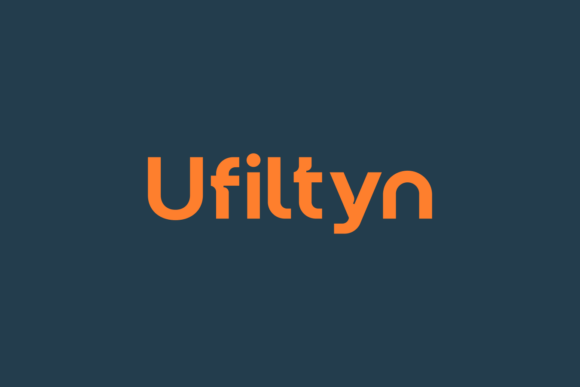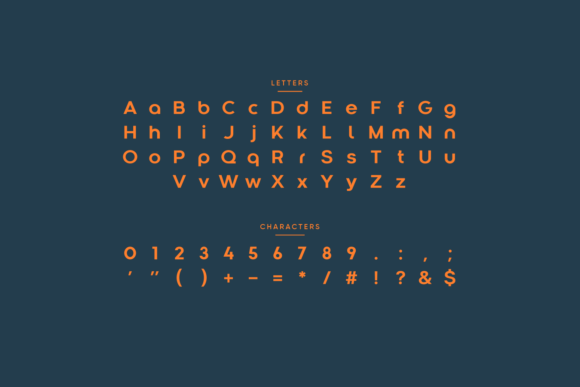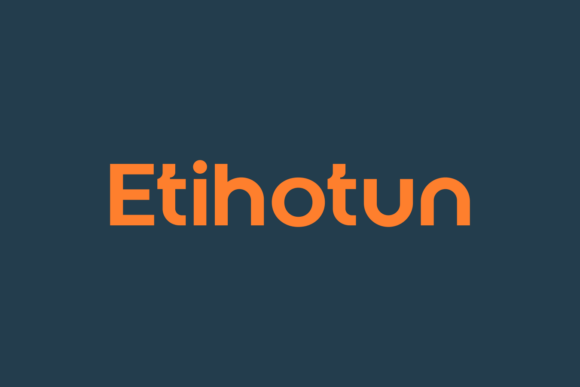
Introduction to Quatty Font Font
Fonts play a crucial role in design, and the Quatty Font font is a typeface that brings both character and versatility to any project. Whether you’re working on a branding project, a website, or a print design, the Quatty Font font offers a unique style that can elevate your work.
Quatty is a striking modern display typeface that commands attention with its bold, geometric letterforms and confident proportions.
Its rounded “Q” introduces warmth, while the sharp, precise cuts in the “t” and “y” inject an edge of sophistication, creating a balance between friendliness and authority The heavy weight and clean lines make it ideal for impactful headlines, branding, and visual identities that need to be memorable.
Key Features of Quatty Font Font
Why Choose Quatty Font Font?
The Quatty Font font is more than just a typeface – it’s a design tool that helps you communicate your message with style and clarity. Its unique character set and versatile design make it suitable for a wide range of applications, from elegant invitations to bold headlines.
With its carefully crafted letterforms and balanced proportions, the Quatty Font font ensures readability and visual appeal across all mediums.
What makes Quatty Font font special?
The Quatty Font font stands out with its unique design, exceptional readability, and versatility across various design applications.